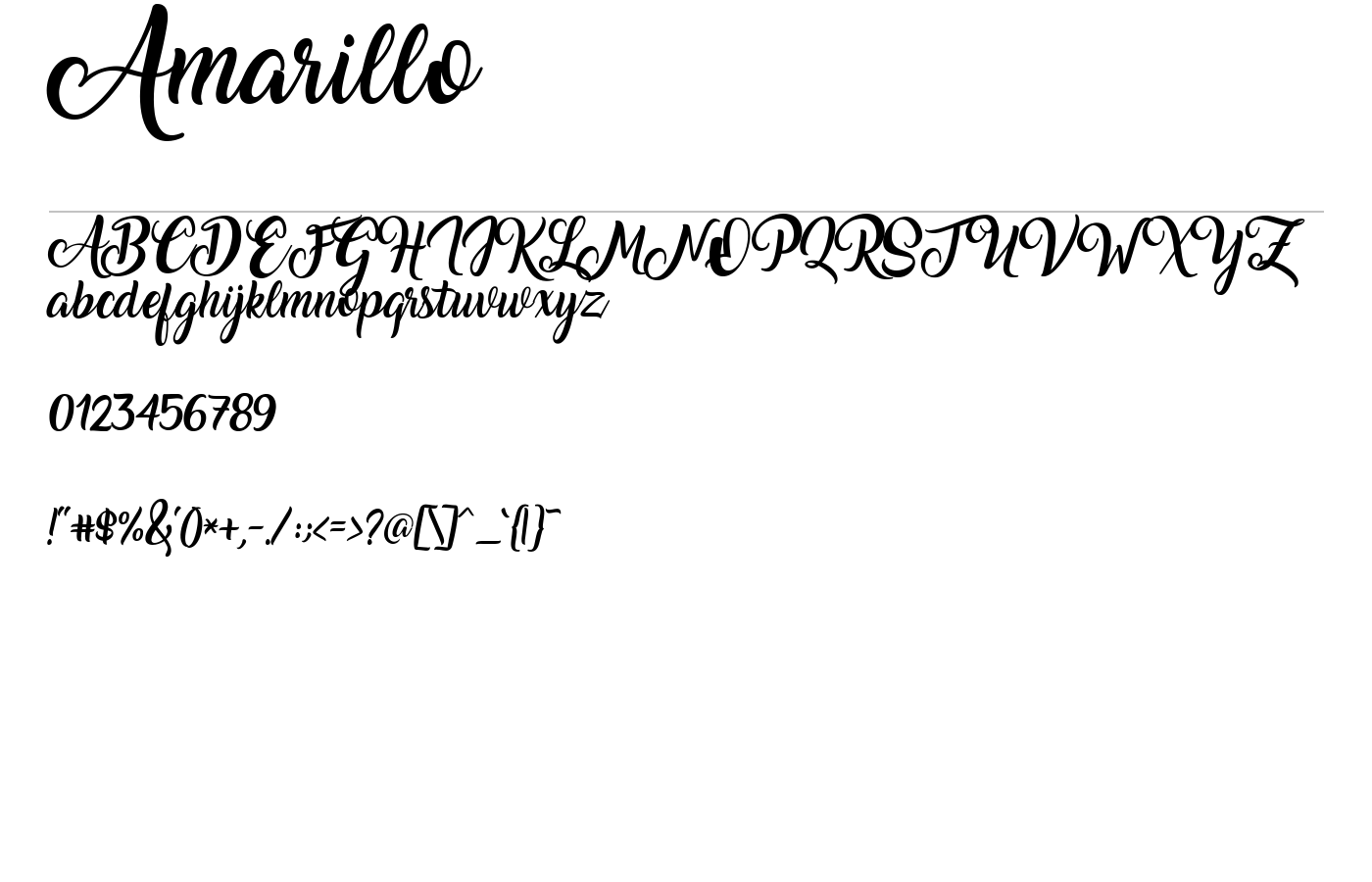
Amarillo is a stylish and elegant script font that features smooth, flowing letterforms with a lively, hand-lettered feel. Its medium weight and moderate contrast along with unique swashes and curls give it a playful yet sophisticated personality, making it perfect for branding, invitations, and fashion design. This font works beautifully in headlines and logos where a touch of charm and luxury is desired.
Amarillo Font
About Amarillo Font
| Font family | Amarillo Font |
| Designer | Francis John S. Villo |